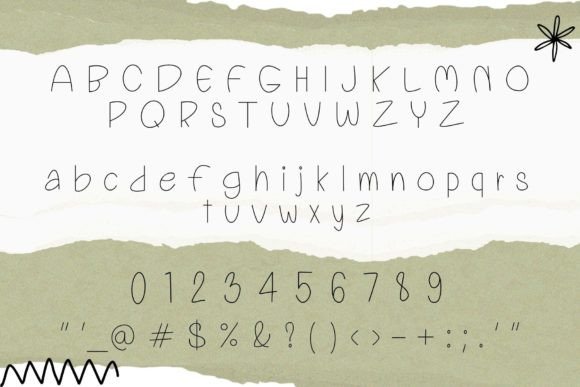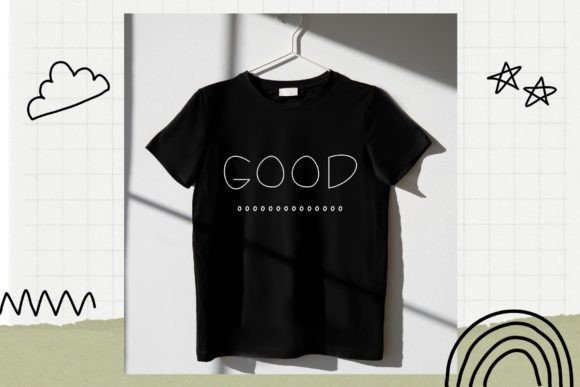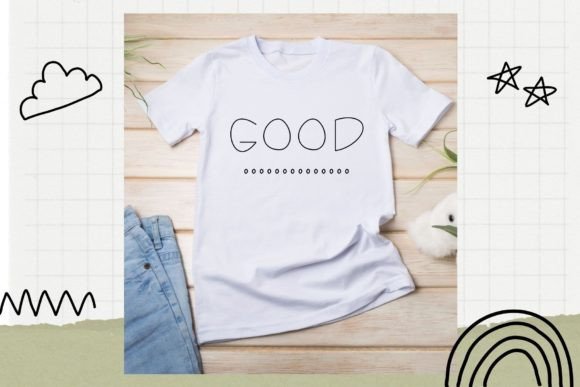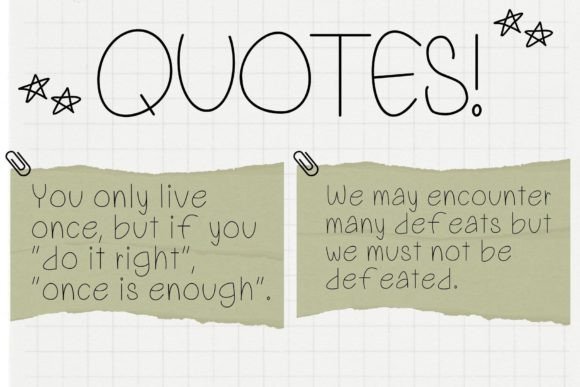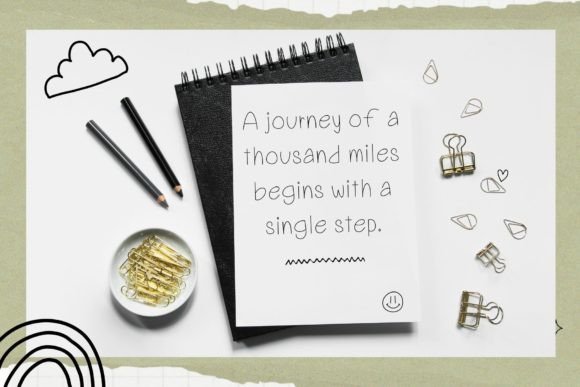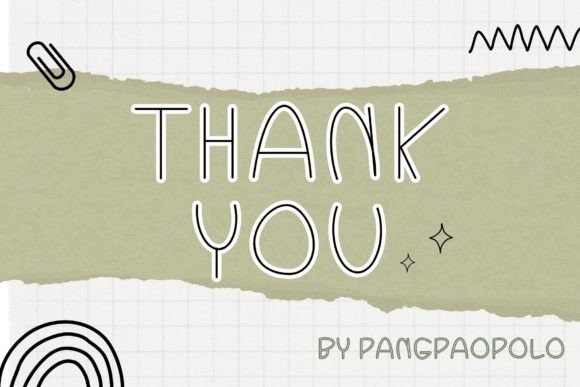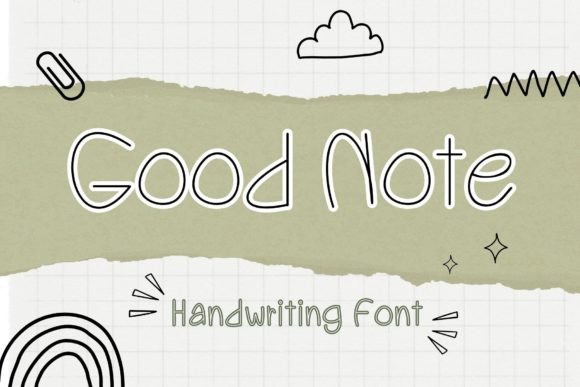
Discover the Elegance of Good Note Font: A Delicate Handwritten Masterpiece
Are you a designer or crafter looking for a font that exudes elegance and sophistication? Look no further than Good Note Font, a delicate and elegant handwritten font that is sure to capture your heart. With its distinct and well-balanced letters, Good Note Font is a masterpiece that can elevate your designs to new heights.
The Characteristics of Good Note Font
Good Note Font is a handwritten font that boasts a unique and versatile style. Its letters are carefully crafted to be both distinct and balanced, making it easy to read and visually appealing. The font’s delicate nature makes it perfect for a variety of design applications, from wedding invitations and stationery to branding and packaging.
The Benefits of Using Good Note Font
So, what makes Good Note Font so special? Here are just a few benefits of using this incredible font in your designs:
- Versatility: Good Note Font is incredibly versatile, making it suitable for a wide range of design applications. Whether you’re creating a wedding invitation or a brand identity, this font can adapt to any style or theme.
- Elegance: Good Note Font exudes elegance and sophistication, making it perfect for designs that require a touch of refinement.
- Readability: The font’s well-balanced letters ensure that your text is easy to read, even at small sizes.
- Uniqueness: Good Note Font has a distinct and unique style that sets it apart from other fonts. Your designs will stand out from the crowd with this font.
How to Use Good Note Font in Your Designs
Good Note Font is easy to use and can be incorporated into your designs in a variety of ways. Here are a few ideas to get you started:
- Wedding Invitations: Use Good Note Font to create beautiful and elegant wedding invitations that set the tone for the big day.
- Branding: Good Note Font is perfect for branding and packaging designs that require a touch of sophistication.
- Stationery: Create stunning stationery, such as notebooks and journals, with Good Note Font.
- Signage: Use Good Note Font to create eye-catching signage for events, businesses, or personal projects.
Tips for Pairing Good Note Font with Other Fonts
Pairing Good Note Font with other fonts can create a unique and visually appealing design. Here are a few tips for pairing Good Note Font with other fonts:
- Contrasting Fonts: Pair Good Note Font with a bold, contrasting font to create visual interest and hierarchy.
- Similar Fonts: Pair Good Note Font with a similar font to create a cohesive and harmonious design.
- Experiment: Don’t be afraid to experiment with different font pairings to find the perfect combination for your design.
| Font Name | Good Note Font |
| Author | PANGPAOPOLO |
Good Note Font is a delicate and elegant handwritten font that is sure to capture your heart. With its distinct and well-balanced letters, this font is a masterpiece that can elevate your designs to new heights. Whether you’re a designer or crafter, Good Note Font is a versatile and elegant solution for a wide range of design applications. So why wait? Fall in love with Good Note Font and create spectacular designs that showcase its beauty.